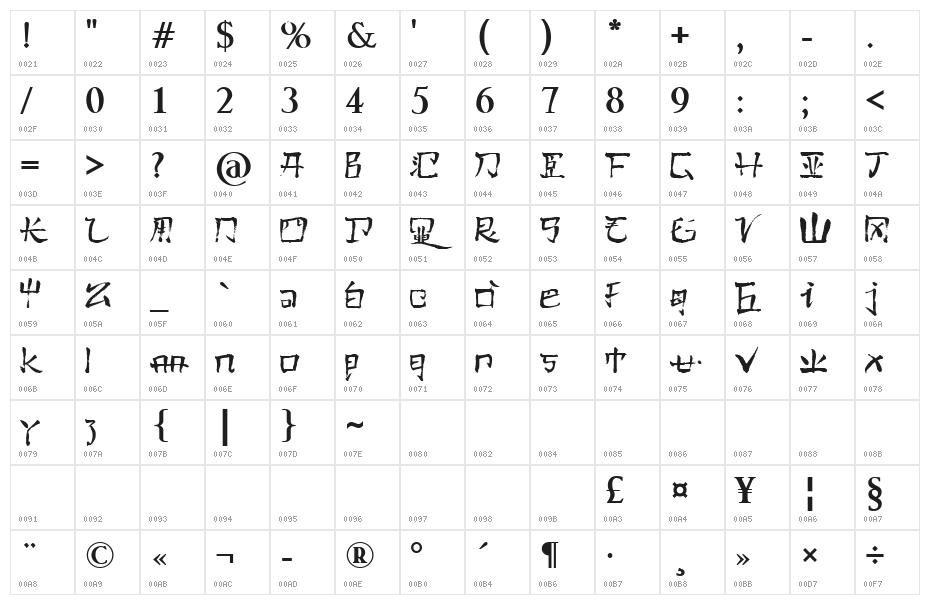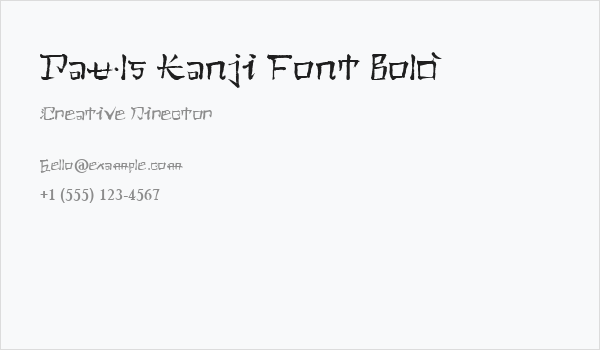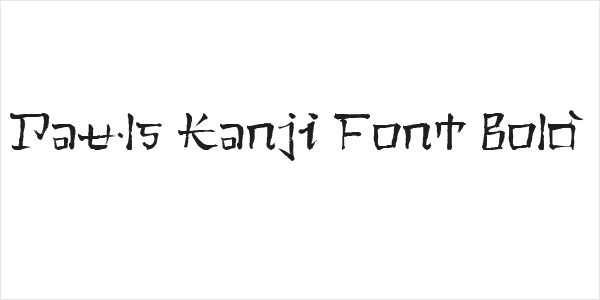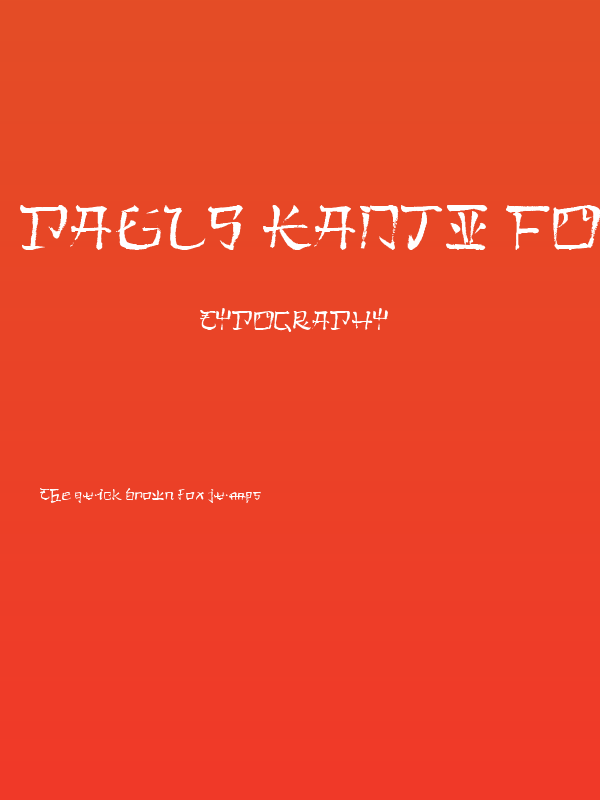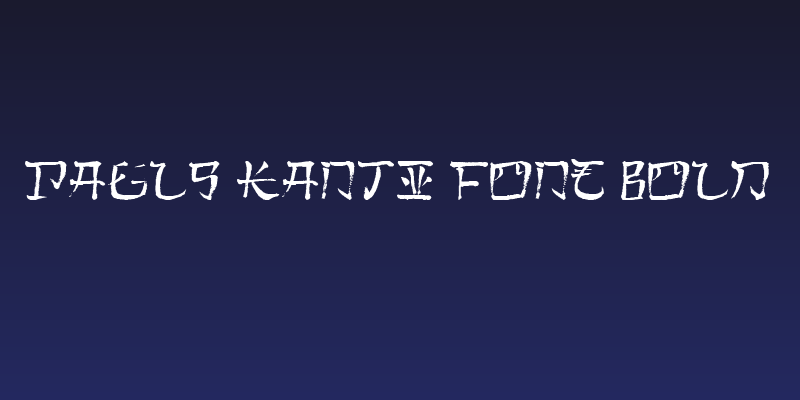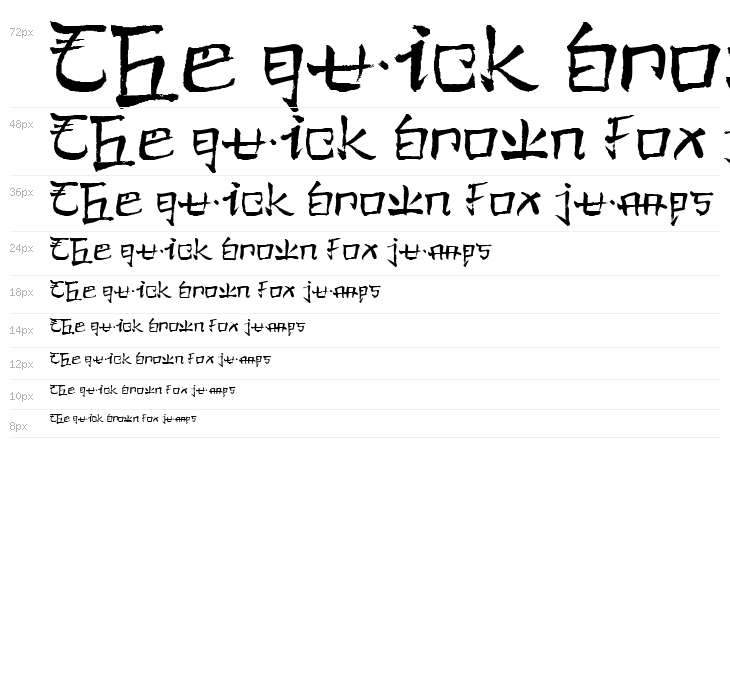
Pauls Kanji Font Bold Font
Pauls Kanji Font Bold Description
This font features a bold and artistic style, reminiscent of traditional calligraphy with a modern twist. The uppercase and lowercase letters exhibit a brush-like texture, giving them a dynamic and expressive appearance. The strokes are uneven, adding a handcrafted feel, while maintaining legibility. The numerals are more structured, providing a contrast to the freeform letters. Special characters are included, maintaining the same artistic flair. This font is ideal for projects that require a creative and bold statement, combining traditional elements with contemporary design.
| Use Case | Headlines, Logos, Artistic projects |
| Proposed Projects | Ideal for artistic posters, branding, logos, and creative headlines. |